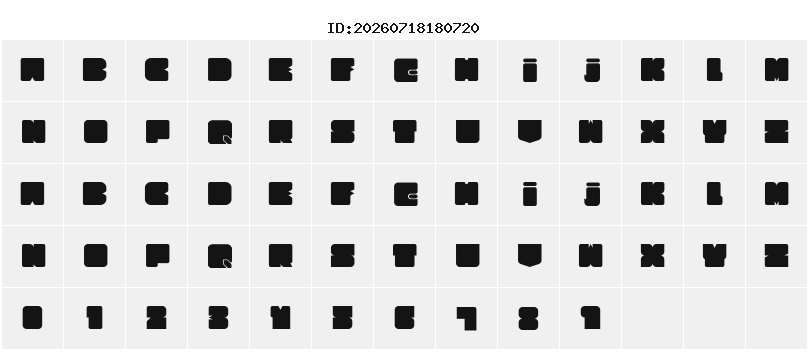
• Font Name: Cubesity Rounded v2
• Designer: Pelayo Rodríguez
About Cubesity Rounded v2.ttf
Cubesity Rounded v2.ttf is a modern, elegant sans-serif font designed for ultimate readability and visual harmony. Perfect for branding, headlines, web design, and print materials.